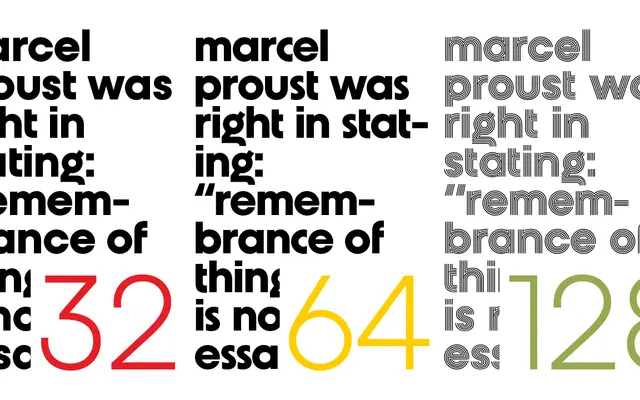
Unigeo
Zetafonts · Cosimo Lorenzo Pancini, Francesco Canovaro · 2023
A geometric sans family in three subfamilies, each drawing from vintage computing and photo-lettering era references at different levels of display flair and decorative intensity.
Designed by Cosimo Lorenzo Pancini with Francesco Canovaro, Unigeo spans three subfamilies named after computing memory sizes: Unigeo32 favours contemporary shapes optimised for text use, Unigeo64 is the display-oriented variant with tight tracking and period-specific letterforms, and Unigeo128 applies an optical-art stripe treatment to the same skeleton. All three are available in eight weights from Thin to Extrabold, with italics on the 32 and 64 variants, variable font versions for each, and coverage across Latin, Greek and Cyrillic for 210 languages.
A constructed geometric sans-serif built on modular principles, referencing photo-lettering era letterforms and vintage computing aesthetics. Three subfamilies vary the level of period-specific detailing and decorative treatment.